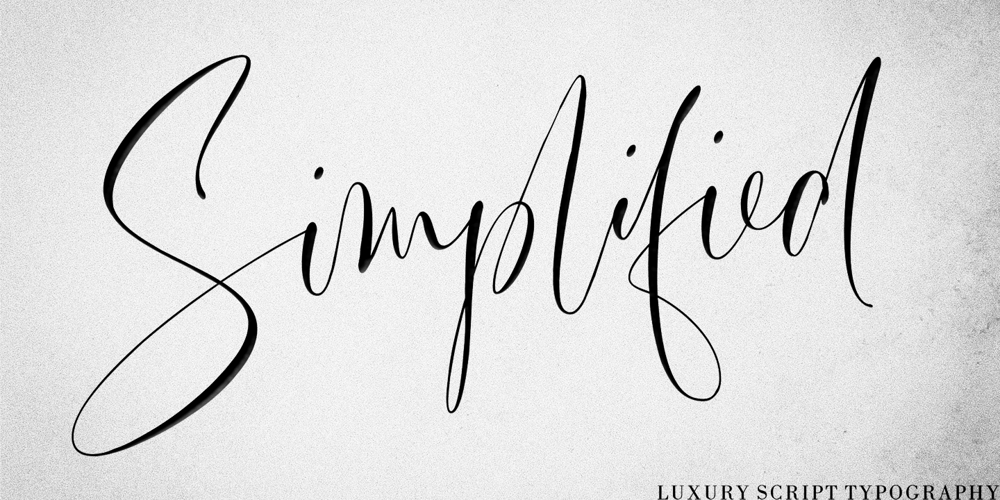
Simplified Font Family was designed by Nurul Fajri Redy and published by Redy Studio. Simplified contains 1 styles and family package options. Simplified – Casual Chic FontSimplified is a casual and natural font, with a spirit of clean-cut modern and classic. This typeface has been specially designed to give a feeling of casual luxury. This is not easy typography! We have done a lot of effort to build this font. In the past, we have experimented with a ton of fonts that are similar to Simplified, and Simplified is better in every aspect that I have found, including some OpenType features and ligatures, lowercase beginning & ending swashes that you can use to make your own style. In short, it’s a typeface that you must have!Simplified features: A full set of upper & lowercase characters Numbers & punctuation 63 Gorgeous ligatures Lowercase beginning swashes Lowercase ending swashes Multilingual symbols PUA Encoded Characters – Fully accessible without additional design software. Feel free to give me a message if you have a problem or question. Thank you so much for taking the time to look at one of our products.